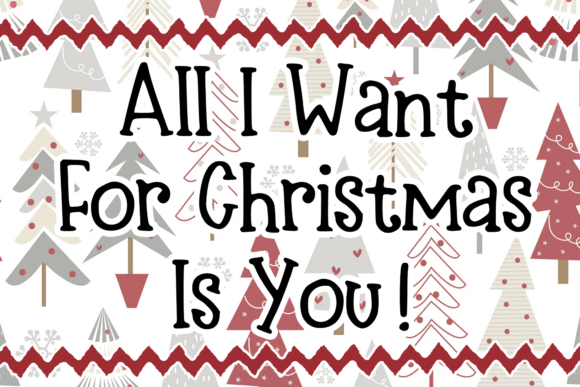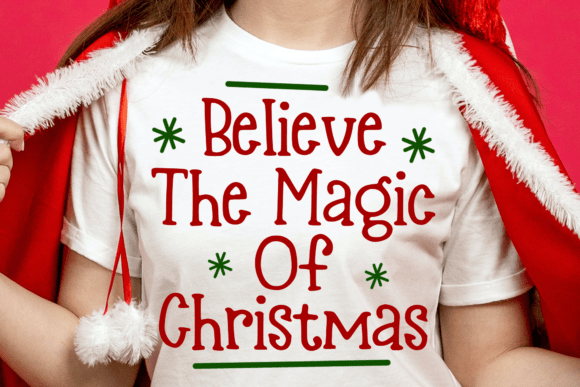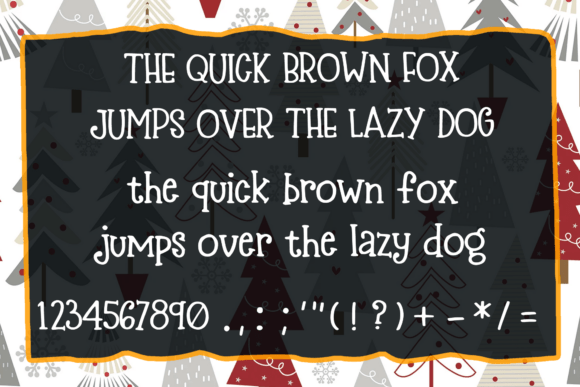
Introduction to Magical Season Handwriting Font
Immerse yourself in the festive spirit with Magical Season Handwriting, the ideal font that encapsulates the charm of the Christmas season.
This versatile, playful handwritten font adds an elevated feel to an array of design projects, making it an indispensable asset to your creative toolkit Picture it animating your unique sticker designs, lending flair to t-shirt concepts, or giving your logos an unforgettable twist.